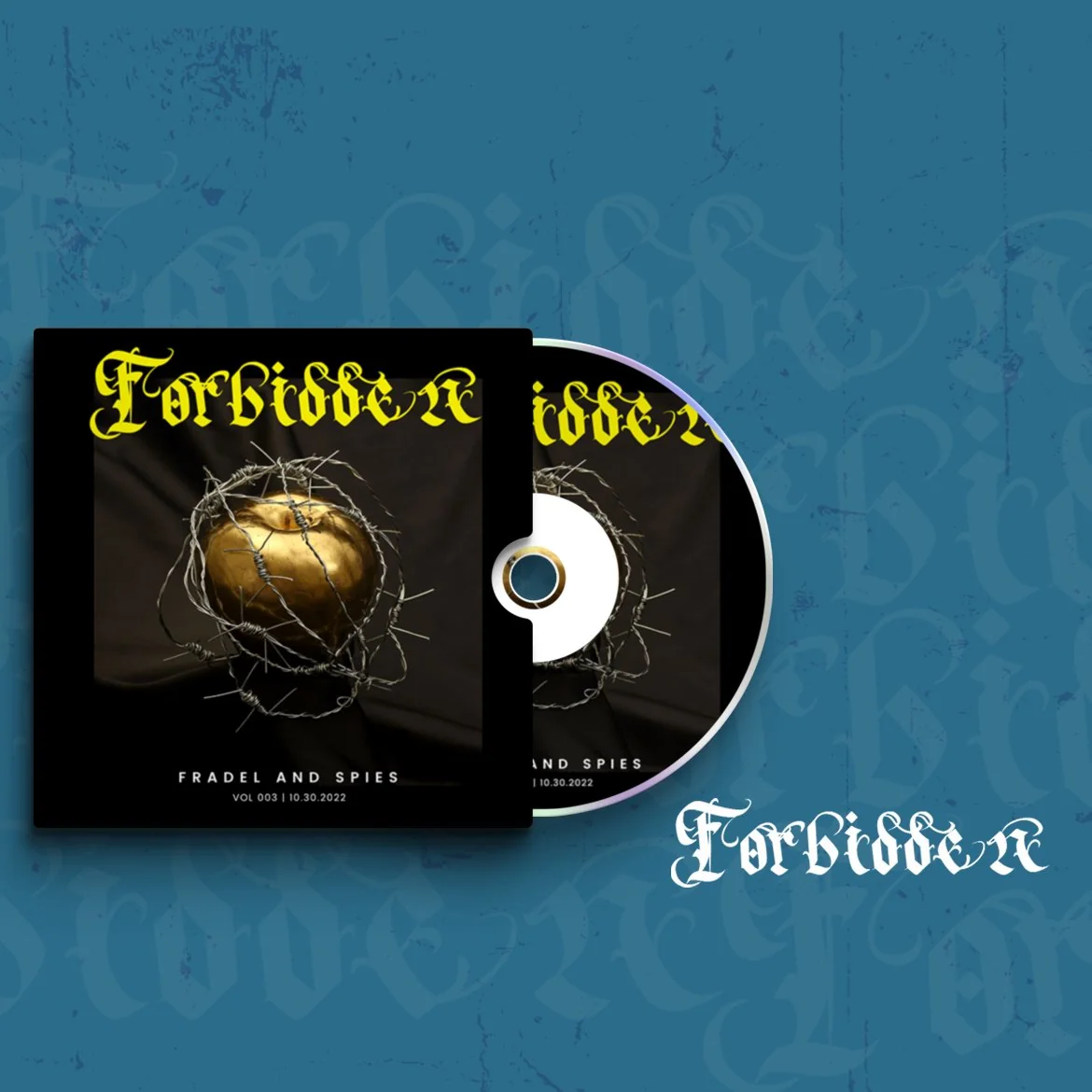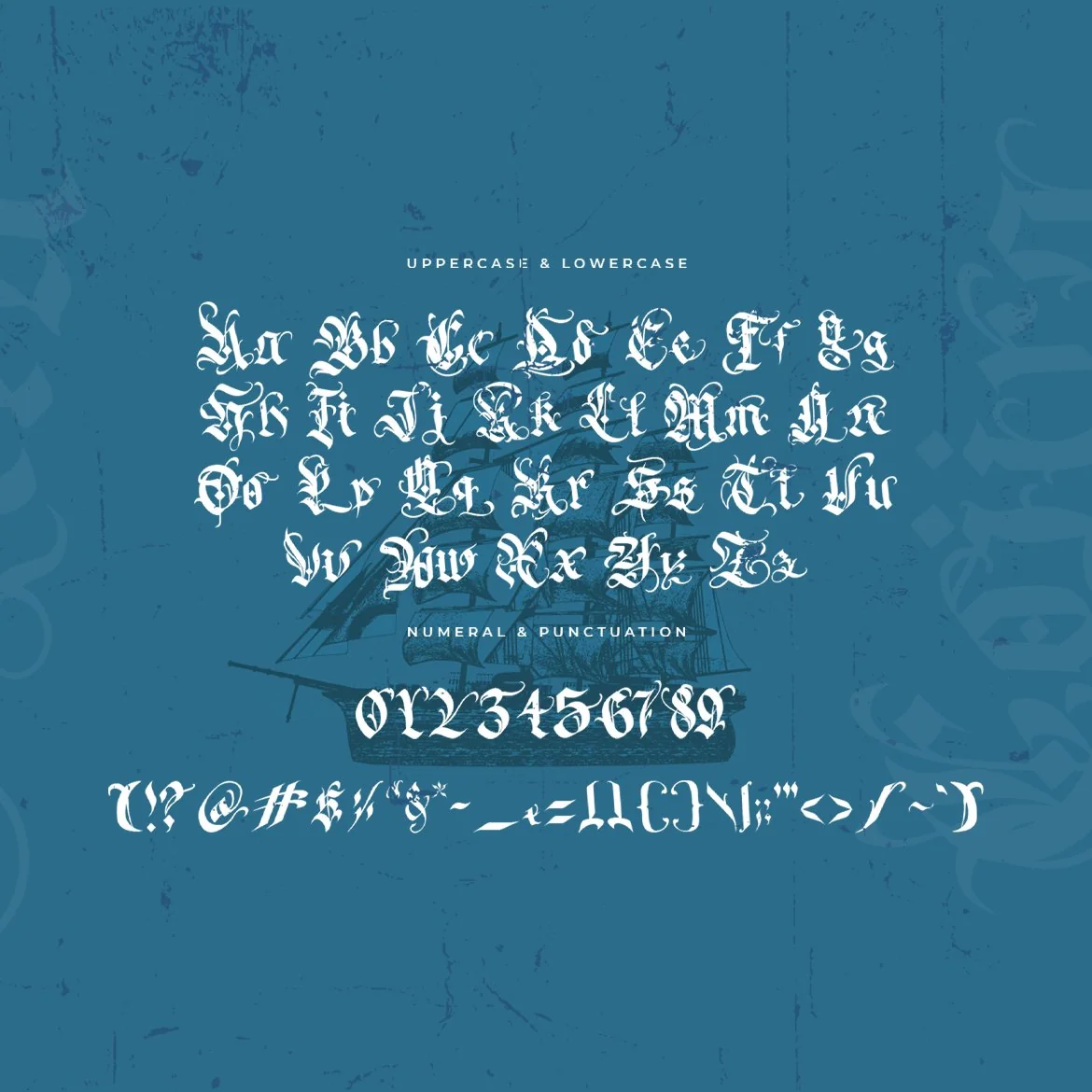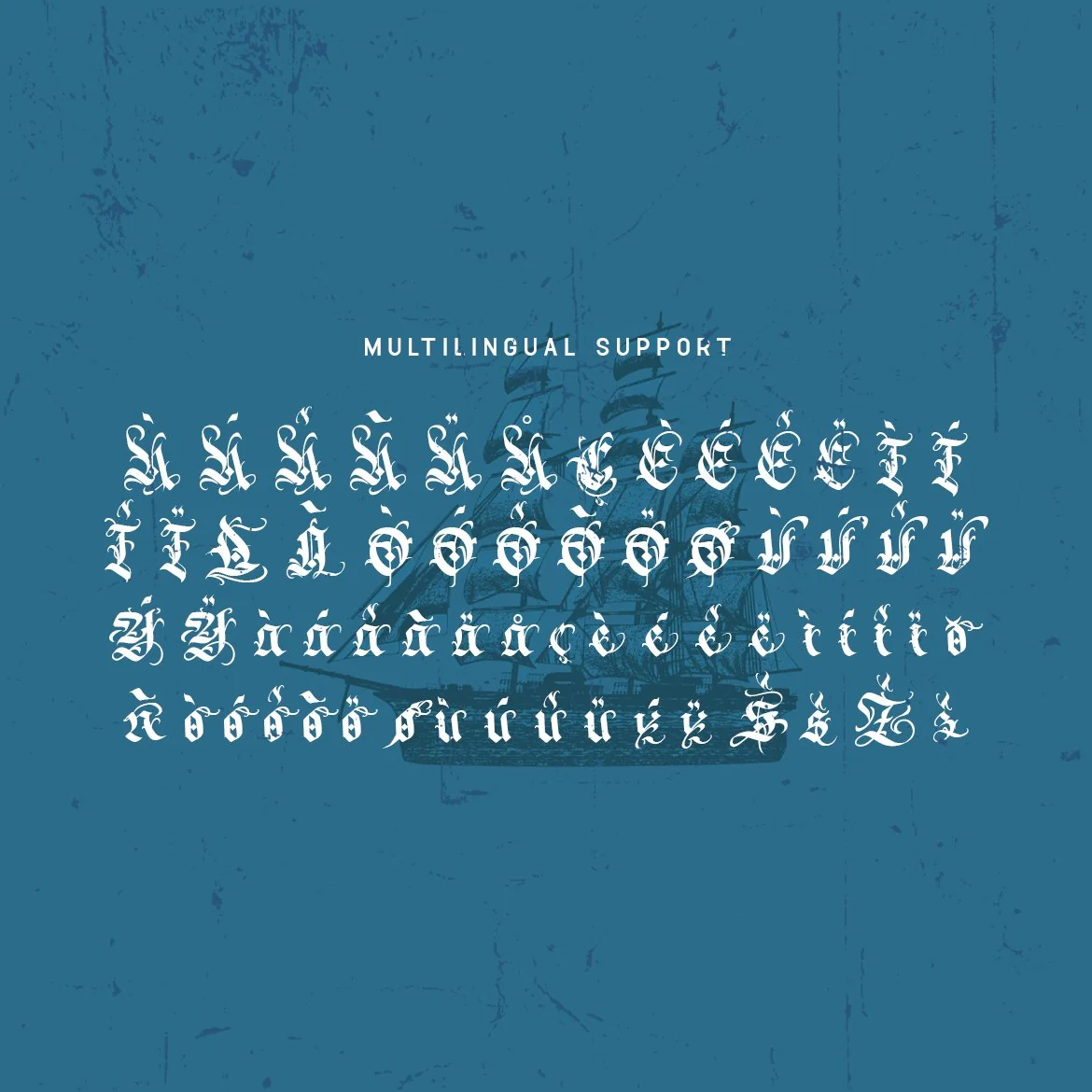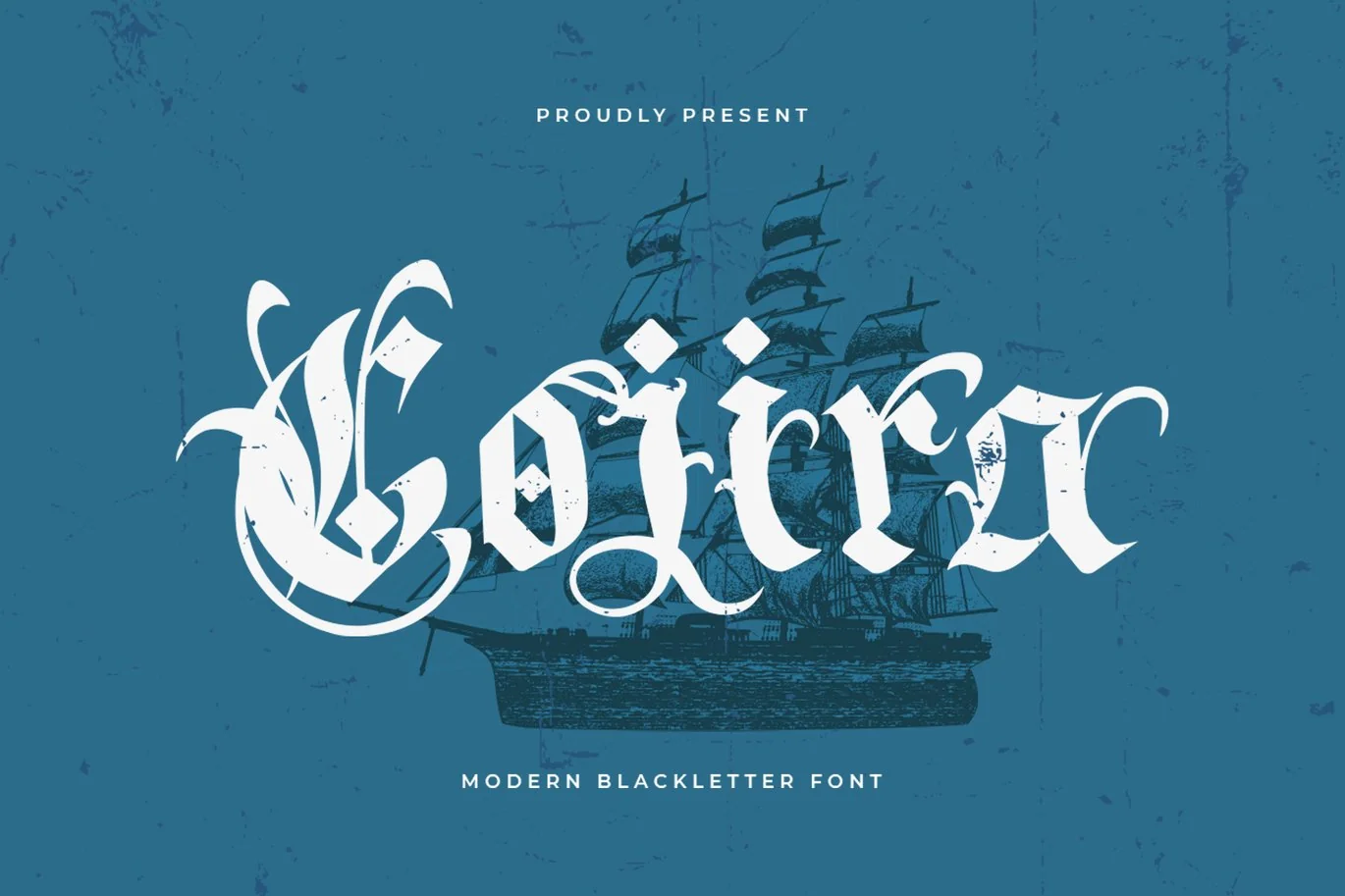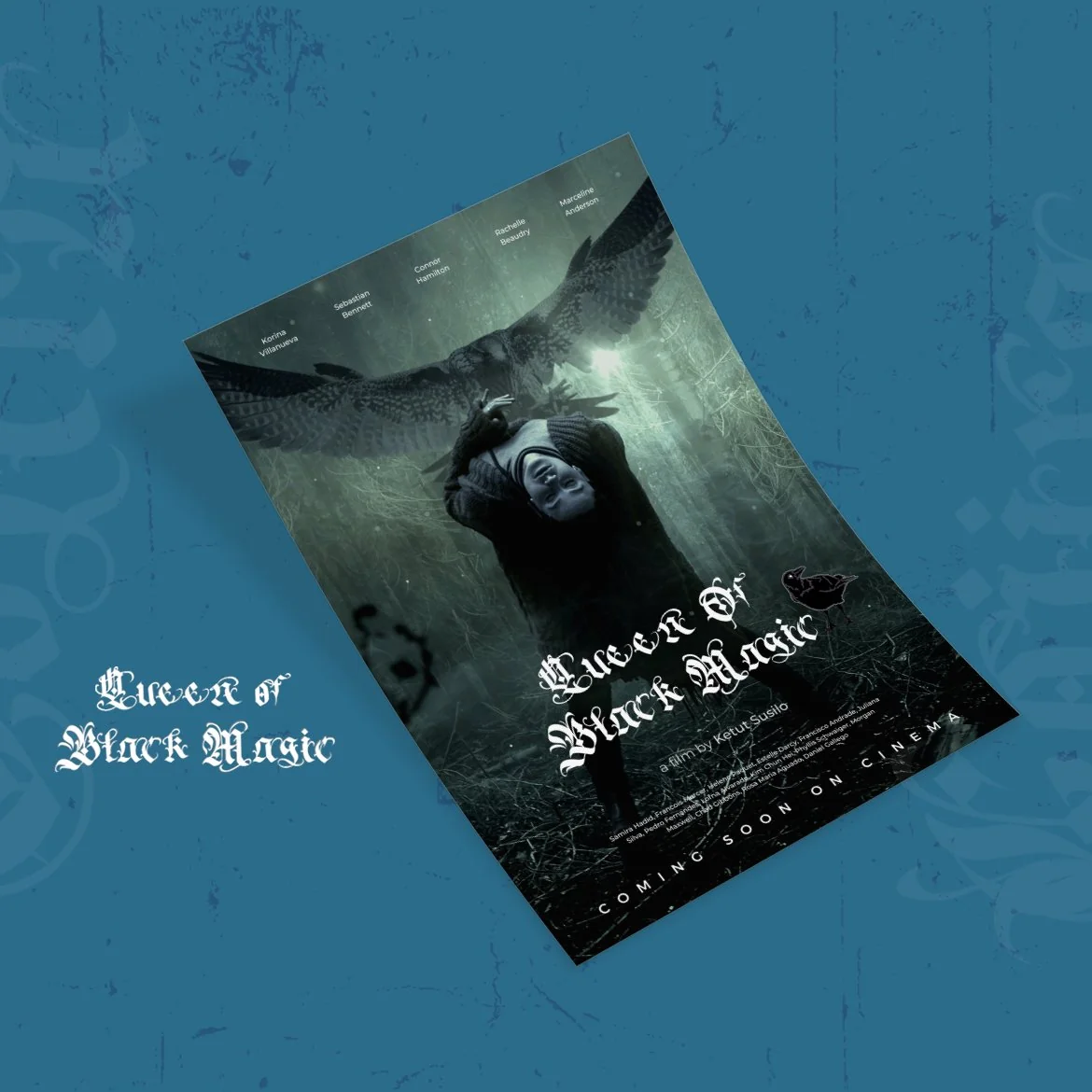
Cojira – Modern Blackletter Font
Introducing “Cojira,” a modern blackletter font that seamlessly combines the timeless elegance of traditional blackletter with a contemporary twist. Perfect for graphic designers, typographers, and creatives seeking to add a touch of bold sophistication to their projects, Cojira offers a unique typeface that captivates with its intricate and refined style.
Ideal for branding, logos, posters, album covers, and editorial design, Cojira’s striking and detailed characters provide a powerful visual impact. Each letter is meticulously designed to ensure readability while maintaining the ornate beauty of blackletter, making your designs both classic and modern.
The “Cojira” font includes a complete set of uppercase and lowercase letters, numbers, punctuation marks, and special characters. This versatile set ensures seamless integration into various design projects, from distinguished branding to eye-catching editorial layouts.
Elevate your designs with Cojira, the modern blackletter font that brings a harmonious blend of tradition and modernity to every project.